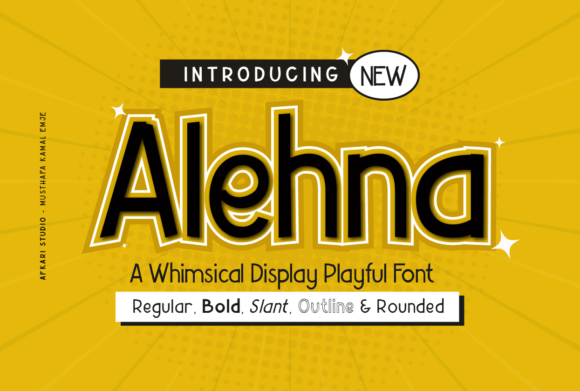
Prepare your designs for a cuteness revolution with Alehna Font, the display font family specifically crafted to bring an irresistibly charming touch to your creations. Designed by the talented afkaristudio, Alehna is not just a font; it's a gateway to a world of delightful aesthetics.
In the realm of logos, Alehna reigns supreme. Its ability to transform ordinary words into captivating emblems of adorableness is simply magical. Picture your brand adorned with Alehna's playful curves and cheerful strokes. Your logo will radiate an aura of warmth and approachability, inviting customers to engage with your brand on a deeper level.
Beyond logos, Alehna's versatility knows no bounds. Its amicable nature blends seamlessly with invitations, greeting cards, posters, and social media graphics. Imagine your words dancing across the page, each letter a tiny ambassador of joy. Alehna has a knack for making even the most mundane messages pop with personality.
But Alehna's charm extends far beyond digital realms. Unleash its potential in your physical crafts, and watch as your creations take on a new life. Scrapbooks, personalized gifts, home décor - Alehna adds a dash of whimsy and delight to every project. Its simplicity and ease of use make it a dream to work with, ensuring that your creative vision materializes effortlessly.
Join the Alehna revolution and let your designs exude an infectious charm. Prepare to be captivated by its undeniable cuteness, a quality that will leave an indelible mark on your audience. Embrace Alehna today, and embark on a journey of design enchantment.